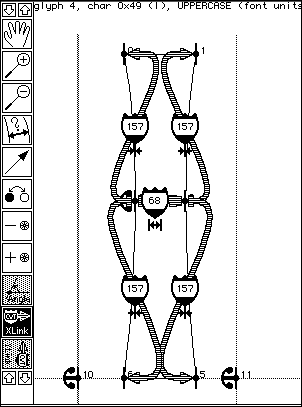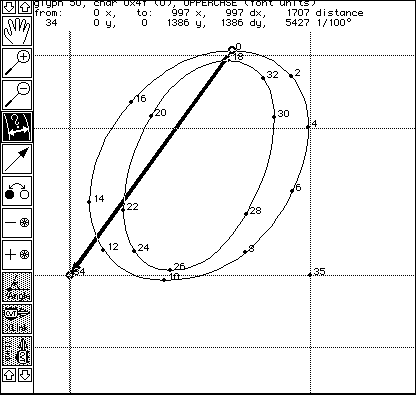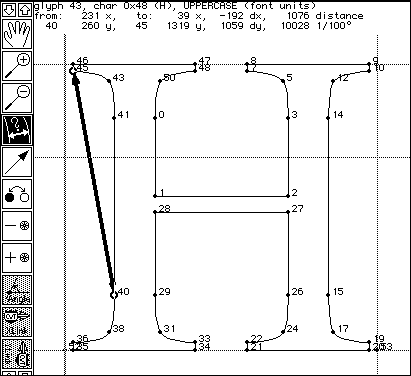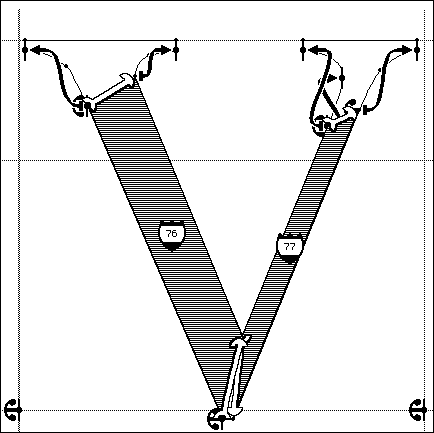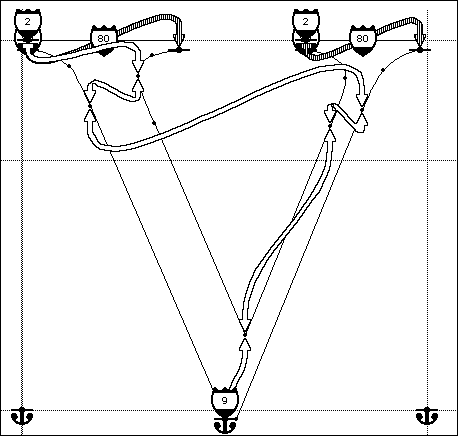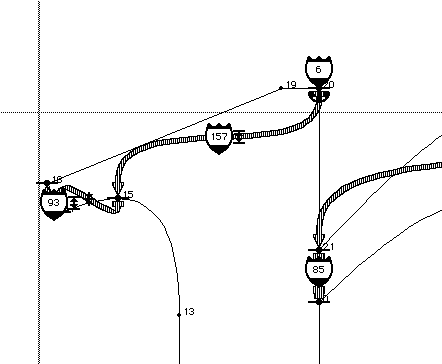
Preparing a Typeface for TrueType
All typefaces and font sources need to be prepared before a TrueType hinting project can be started.
Today two of the most common ways typefaces have been stored as sources are in an Ikarus or a PostScript format. Many typefaces are drawn with bézier drawing programs or commercial bézier based font programs and made into PostScript font files. Acceptable print quality can be achieved with a bézier font program without the use of standardized marking procedures required by professional type foundries. Often designers mark béziers without paying attention to how exact the bézier point markings are positioned. A higher quality process is necessary to prepare a font file for hinting to insure that the minimum amounts of instructions are used in the final font file. An example of a problem is if, a glyph is suppose to be on the baseline and it is not or if a stem is suppose to be exactly straight and it is not, extra hints would be needed to make them correct. Always keep in mind that if you start with bad outlines, you can't improve them later.
Designing the outlines for Trebuchet
The current TrueType production process is split: with the design and hinting process done on a Macintosh, and the testing of the font file on Windows.
Trebuchet was a project intended to be a clean screen reading font, as well as a scalable printing outline font.
After working through drawings and individual images, I started the outlines using Macromedia Fontographer 4.1 for the Macintosh. Starting with outlines I created for a previous project, which was an unreleased grotesque style design.
Trebuchet is a sans serif typeface with modern geometric features. I used consistent stem distances, accurate group height alignments and zero tolerances for straight strokes and point alignments. This is not always the case in the design of all fonts, especially less modern designs.
The methods I used in the design process for Trebuchet made it easy for me to also hint the final font file.
After I completed the outlines, I used a method similar to the one described in the next section. The only difference was I also used two additional professional tools: one an outline conversion tool and the other a TrueType table tool. You can obtain similar results with the method described below.
Preparing a Font with Fontographer 4.1
In this section, we'll discuss using Macromedia Fontographer 4.1 for the Macintosh to create a TrueType file that can be used with Visual TrueType.
Working with Fontographer, there are several settings and procedures you should be aware of.
Launch Fontographer 4.1. Then from the 'File' menu select 'New Font...' A window is displayed for an Untitled-1 font.
NOTE: The original versions of Fontographer were made to create PostScript fonts. The initial default settings are for a Macintosh PostScript font.
Selecting the 'Element' menu and 'Font Info...' displays the Font Information dialog. Here you can name this font, set the style, encoding, metrics and insert a copyright notice. The name will be used to create a Fontographer file when a new Fontographer file is saved. This name is also used when a font is generated from this Fontographer file for font file names and font format table information. The style is used when creating a family and Fontographer uses this field similarly to the name field. "Font Metrics" set the font units for this font file. Font Metrics (or Units per Em) are by default 1000 and is the standard setting for a PostScript font. In TrueType, for best performance, it is strongly recommended that a TrueType font file be 2048 Units Per Em (UPEM).
Exercise 1: Setting font information and font metrics.
If you have not done so already, select 'New Font...' from the 'File' menu. Then select 'Font Info...' from the 'Element' menu. You should now have the Font Information dialog displayed. Name the font by typing a name (ex: MyFont) in the Name:FamilyName field. The default "Plain" style is set for the Name:Style name field. The field currently appears blank, but by selecting the Style Name pop-up menu, the 'Plain' menu item is already checked and selected. For the Encoding field we will keep the default encoding set to Macintosh. The next fields are the Font metrics fields. We will scale all values in the Font metrics field by 2.048. This sets the font's metrics to be at 2048 units per em. Set the fields as follows:
Ascent = 1638, Descent = 410, Em Square = 2048, Leading = 0, Underline Position = -272, Underline Width = 41. Click the 'OK' button.
You now have a font in 2048 UPEM. Next double-click the 'A' character (decimal # 65). In the 'A' character window, draw an image. If you are familiar with Fontographer and working in 1000 units you will notice the units displayed for point coordinates are approximately twice as large as you might expect. (Actually 2.048 times as large.) Any glyph copied from a 1000 unit font to this file will be automatically scaled to 2048 units.
Exercise 1-1a: Working from your Existing Typefaces
In the next exercise we will open an existing PostScript printer font, scale the font metrics, create a TrueType font with Fontographer and discuss some other TrueType tools.
The first function call copies the value from Cvt 65 into Cvt 66 till 8PPEM. This '8' should be changed to the PPEM size you want the stems to break to two pixels. I would suggest starting at 17PPEM.
In the template Pre-program, the third value from the left in these function calls is set to 8PPEM. This value should be changed to a higher value for inheritance to invoked.